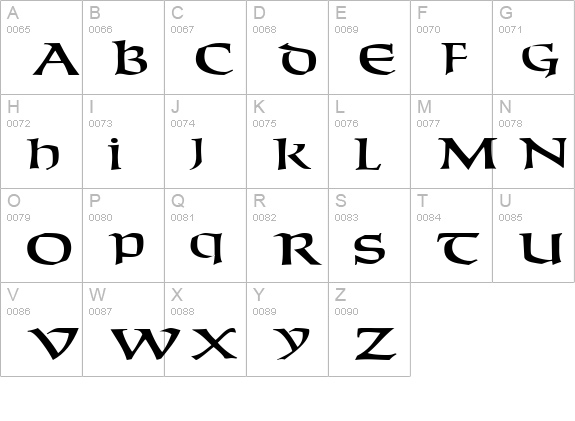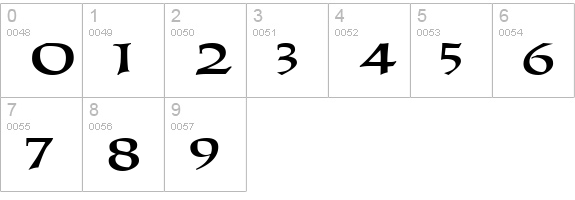
ParaketteScapsSSK Bold Font Details
ParaketteScapsSSK Bold is a strong, high-contrast variant in the ParaketteScapsSSK typeface family \xE2\x80\x94 well suited to headlines, attention-grabbing titles, and strong calls-to-action.
ParaketteScapsSSK Bold font is a visually stunning typeface that effortlessly captures attention with its bold and captivating design. This font exudes confidence and power, making it perfect for a variety of creative projects. With its strong and commanding presence, ParaketteScapsSSK Bold font is ideal for headlines, titles, and eye-catching graphics. Its unique letterforms and intricate details add an element of sophistication, ensuring that your message will stand out from the crowd. One of the best things about ParaketteScapsSSK Bold font is that it is freely available to download at FontsMarket.com. This means that you can access this remarkable font without any cost, making it a valuable asset for designers, creatives, and anyone in need of a striking typeface. Whether you're working on a logo, branding materials, or a promotional campaign, ParaketteScapsSSK Bold font will elevate your designs to new heights. Its bold and commanding presence will leave a lasting impression on your audience, making it an invaluable tool for any design project. So why wait? Download ParaketteScapsSSK Bold font today from FontsMarket.com and unlock its limitless potential. With its striking design and free availability, this font is a must-have for any discerning designer or creative individual looking to make a bold statement.